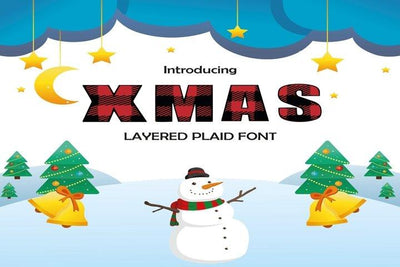
XMAS Plaid Font - A special font
We proudly presenting our First font.
It's called XMAS Plaid Font.
XMAS Plaid Font is an unique, handwritten font with modern and classic touch!
It is a perfect choice for crafters with cutting machines.
XMAS Plaid Font is a fun font that is enough for cutting with Cricut & Silhouette crafting machines, for Titles for kid's book, scrapbook, logo, icon, phrases
or quotes for winter greeting cards ( Christmas or New Year holidays),
photo overlay, short phrases, children’s book, gift shops tag,
presentation in social media Pinterest, Instagram, Facebook or others.